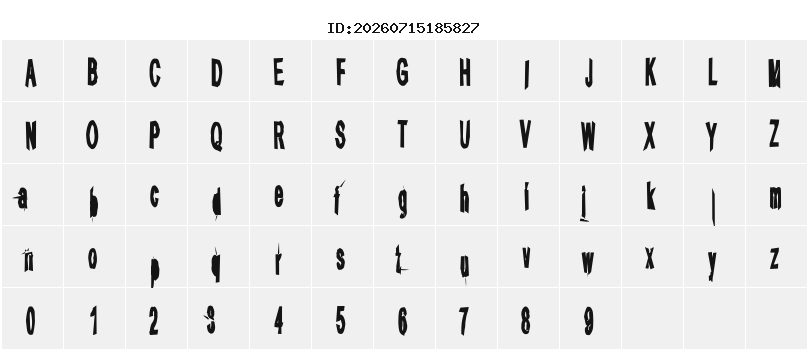
aRape Angular Preview
• Font Name: aRape Angular
• Full Font Name: aRape Angular
• Version: Version 3.00 October 18, 2002
About aRape Angular.ttf
aRape Angular.ttf is a modern, elegant sans-serif font designed for ultimate readability and visual harmony. Perfect for branding, headlines, web design, and print materials.